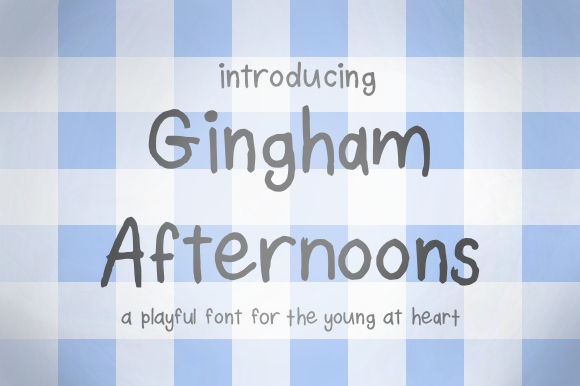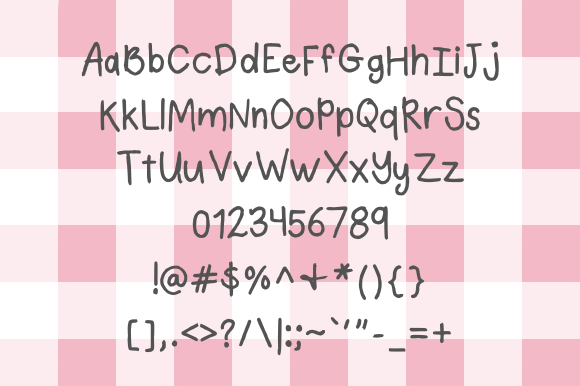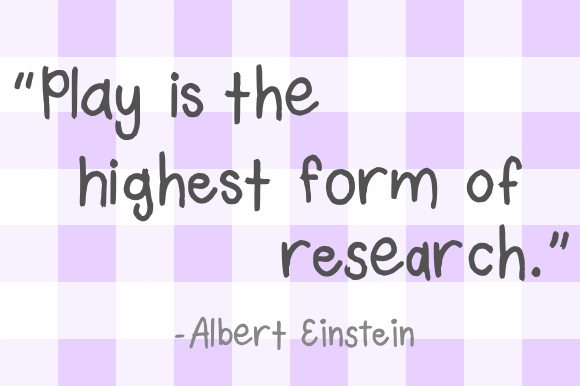
Gingham Afternoons Font
About Gingham Afternoons Font
Gingham Afternoons is a simple, yet playful, handwritten font that’s perfect for a springtime picnic invitation or a back-to-school lunchbox note.